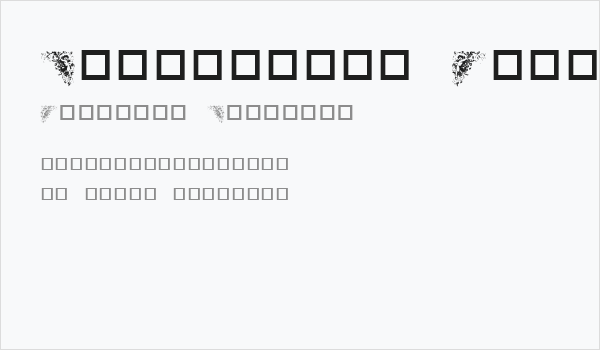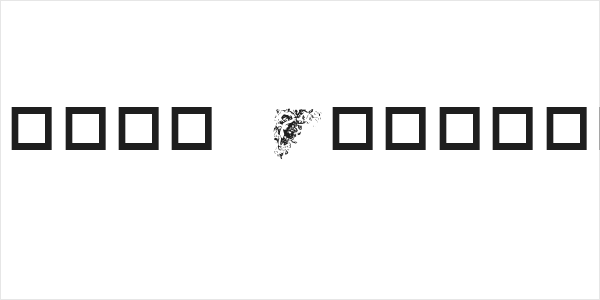
Destiny's Cherubs Ding Font
Destiny's Cherubs Ding Description
This font features a highly decorative style with intricate cherub designs integrated into the characters. The letters are adorned with ornate details, creating a whimsical and artistic appearance. The font is primarily decorative, making it suitable for projects that require a touch of elegance and fantasy. The cherub motifs add a unique charm, making each character a piece of art. This font is not suitable for body text due to its complexity but can be effectively used for decorative purposes.
| Use Case | Logos, Decorative headings, Artistic projects |
| Proposed Projects | Ideal for wedding invitations, greeting cards, decorative posters, and artistic projects that require a touch of elegance and fantasy. |